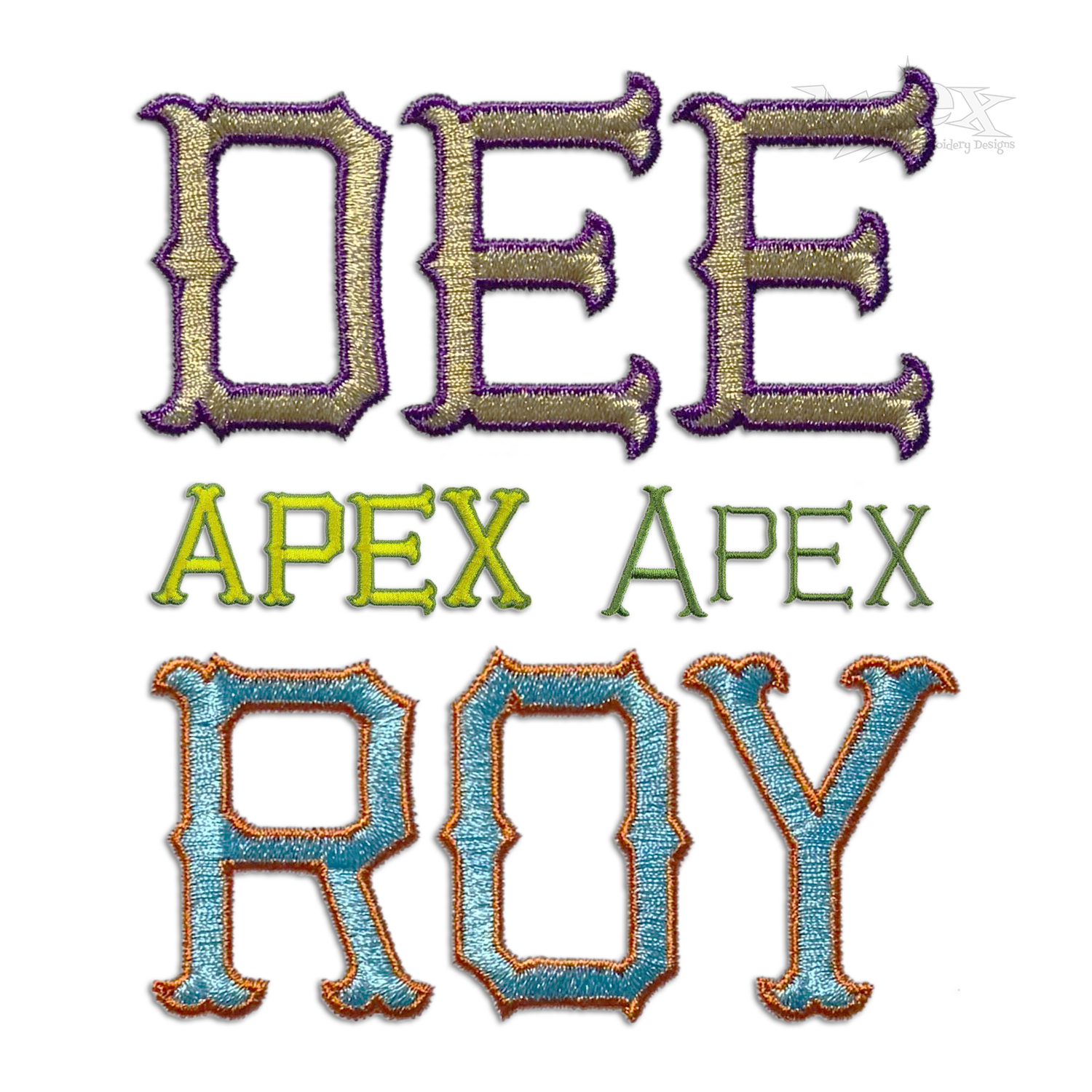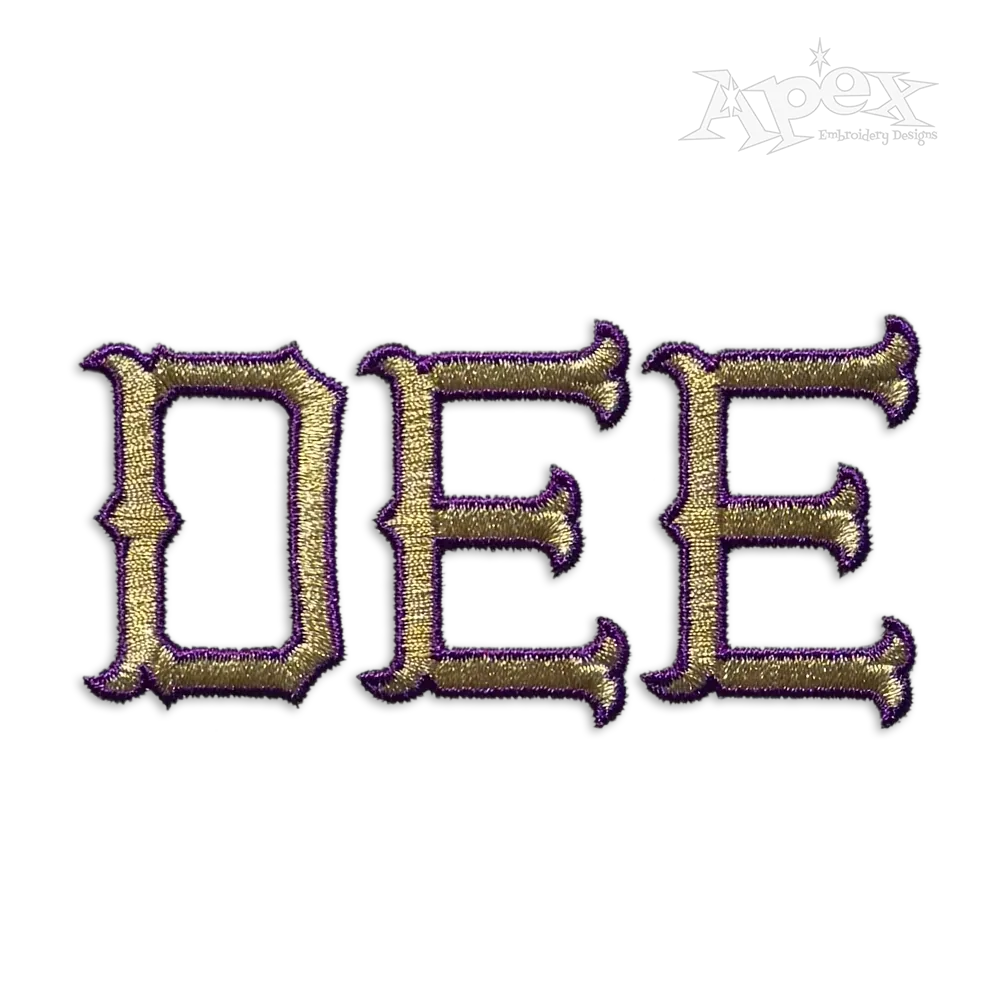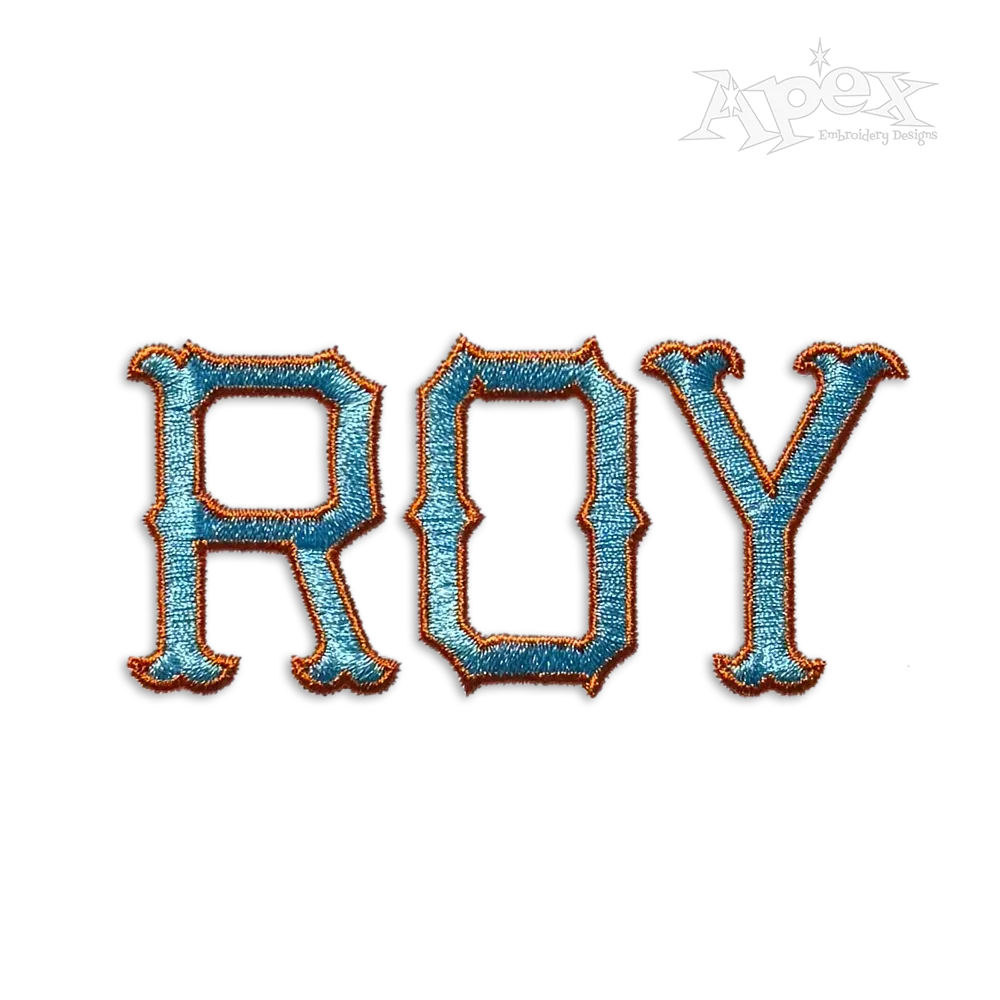
Richardson Satin two color Embroidery Fonts
Born from a reverence for traditional sporting clubs and tailored haberdashery, the Richardson Satin two-color embroidery alphabet brings crisp architectural poise to the hoop. When digitizing this collection, we envisioned the timeless refinement of bespoke resort wear and heirloom monograms—where a bold, lustrous primary satin column is framed and accentuated by a coordinating secondary stitch path. This intentional interplay between two harmonious or contrasting thread shades yields an effortless, dimensional presence that instantly elevates everyday textiles into cherished designer heirlooms.
Project Ideas for Richardson Satin
The tailored silhouette of the Richardson font lends itself naturally to projects that celebrate classic polish and personalized charm:
- Linen Cocktail Napkins: Stitch bold, high-contrast duo-tone monograms in the corners of crisp linen for elevated entertaining.
- Bespoke Resort Wear & Polos: Embellish piqué shirts, resort dresses, and lightweight jackets with subtle tone-on-tone color pairings for understated luxury.
- Heirloom Bedding & Linens: Frame pillow shams, duvet corners, and master bath towels with rich two-color embroidery that withstands daily use.
- Canvas Weekend Totes: Add crisp collegiate athletic flair to heavy canvas carryalls and tennis bags using vibrant contrasting thread palettes.
- Bridal & Milestone Gifting: Personalize silk dressing gowns, pocket squares, or commemorative wedding ribbons with soft metallic and pastel accents.
To maximize the balance and symmetry of the Richardson letterforms, consider these time-tested layout placements:
- Corner Diagonal: Angle initials 1.5 to 2 inches inward from hemstitched corners on dinner napkins, handkerchiefs, and tea towels.
- Center Chest & Pocket Welts: Position single initials or three-letter monograms centered 7 to 9 inches down from the left shoulder seam on polo shirts and button-downs.
- Sleeve & Cuff Detailing: Position discreetly 1 inch above the cuff hem on tailored pajamas, robes, or dress shirts for a quiet, bespoke signature.
- Pillow Return Borders: Center names or monograms cleanly along the hem flange of standard shams and decorative bolster pillows.
Richardson Satin Craft & Letterform Details
Digitizing a two-color satin alphabet requires relentless attention to stroke anatomy and stitch flow. Every capital letter is constructed with foundational underlay specifically built to stabilize both thread layers without adding bulk or stiffness. The primary satin paths flow along natural letterform arcs, while the secondary accent outlines are micro-engineered with calibrated pull compensation to guarantee seamless, gap-free alignment on everything from crisp poplin to textured terrycloth.
Subtle bevels on the terminal serifs catch light from different directions, giving the satin threads a lustrous, hand-loomed sheen. By dividing the design into two separate, optimized color stops, the artisan maintains total creative freedom—pairing classic navy with heritage gold, crisp ivory with optic white, or jewel tones with metallic threads for an impeccably tailored finish every time.